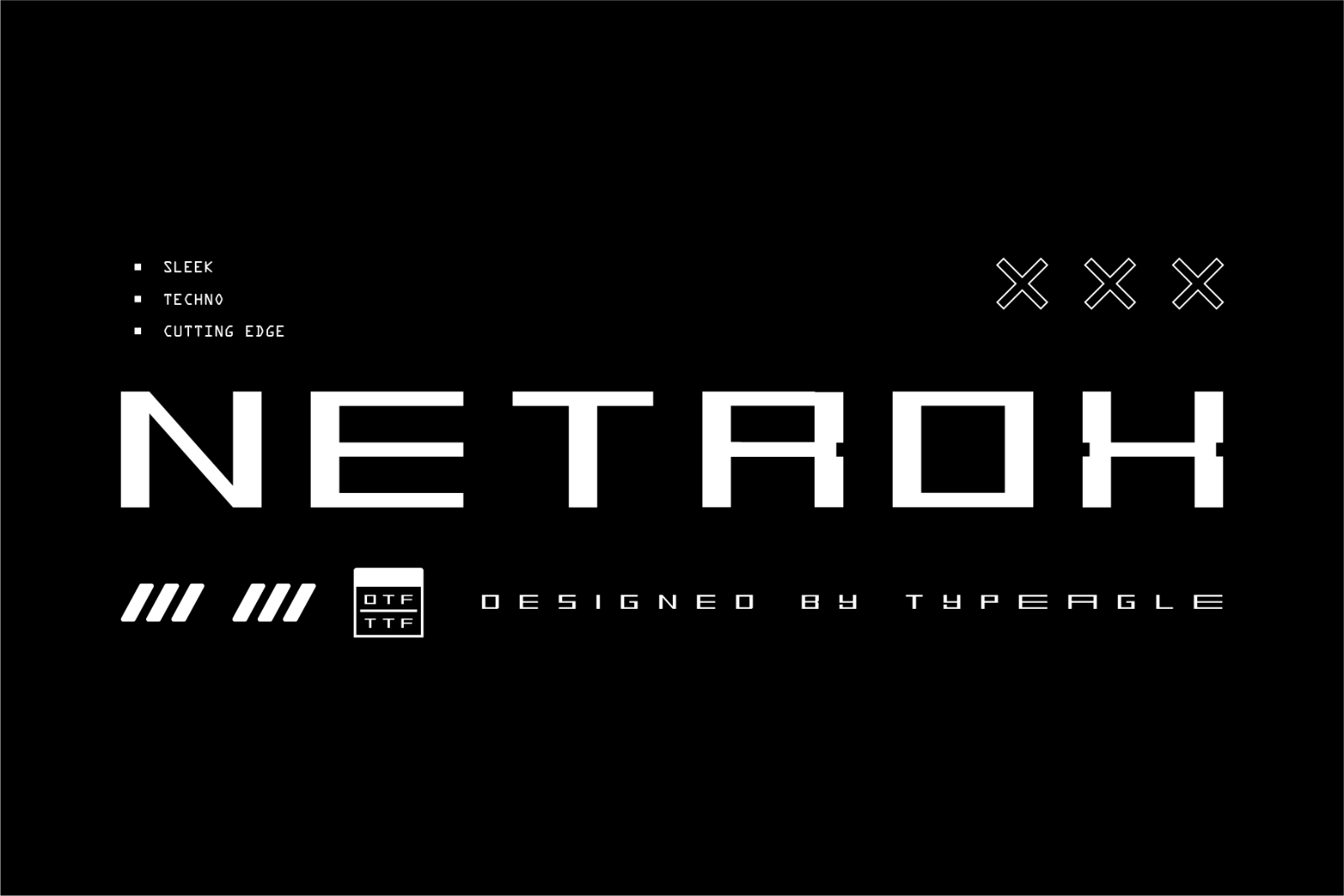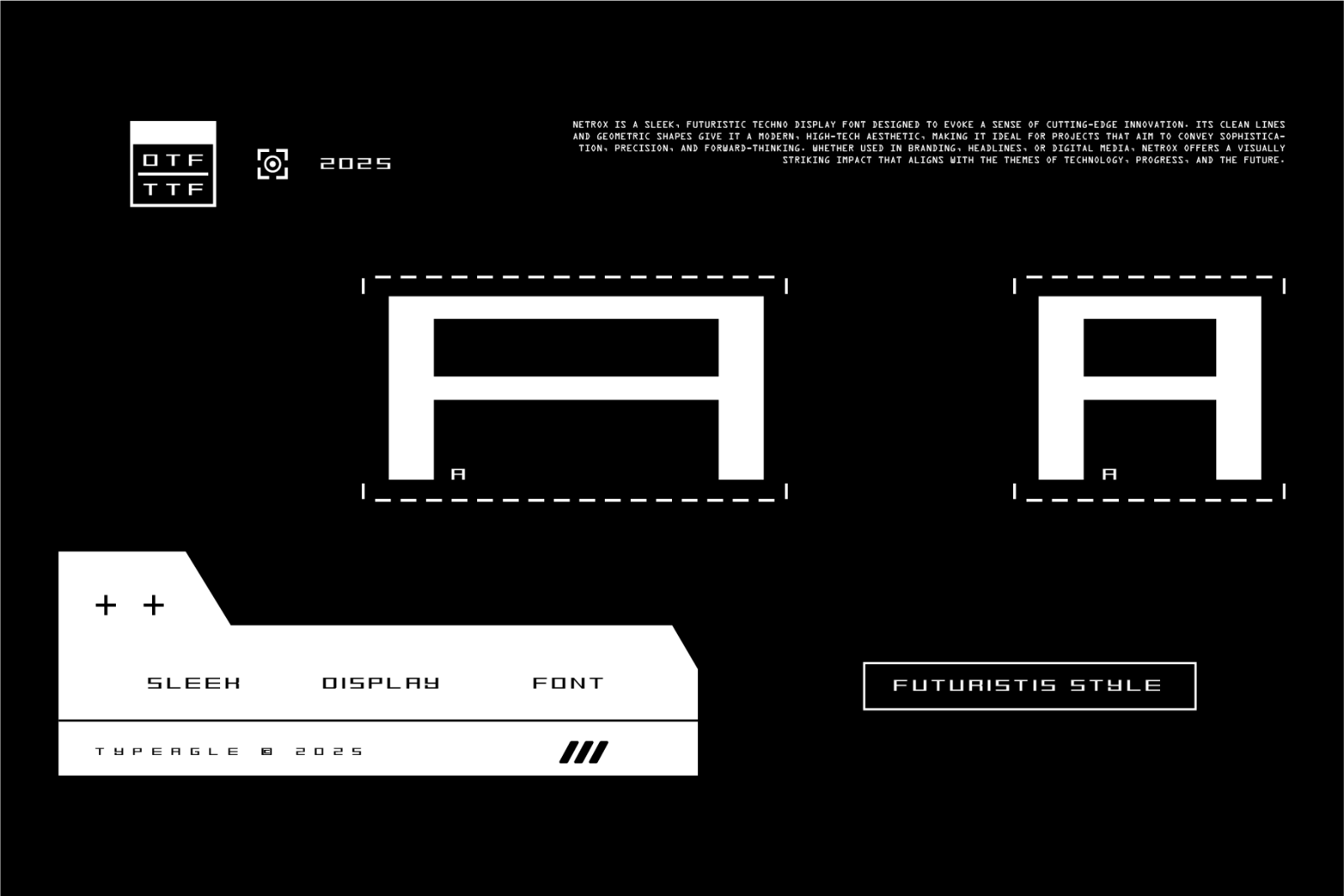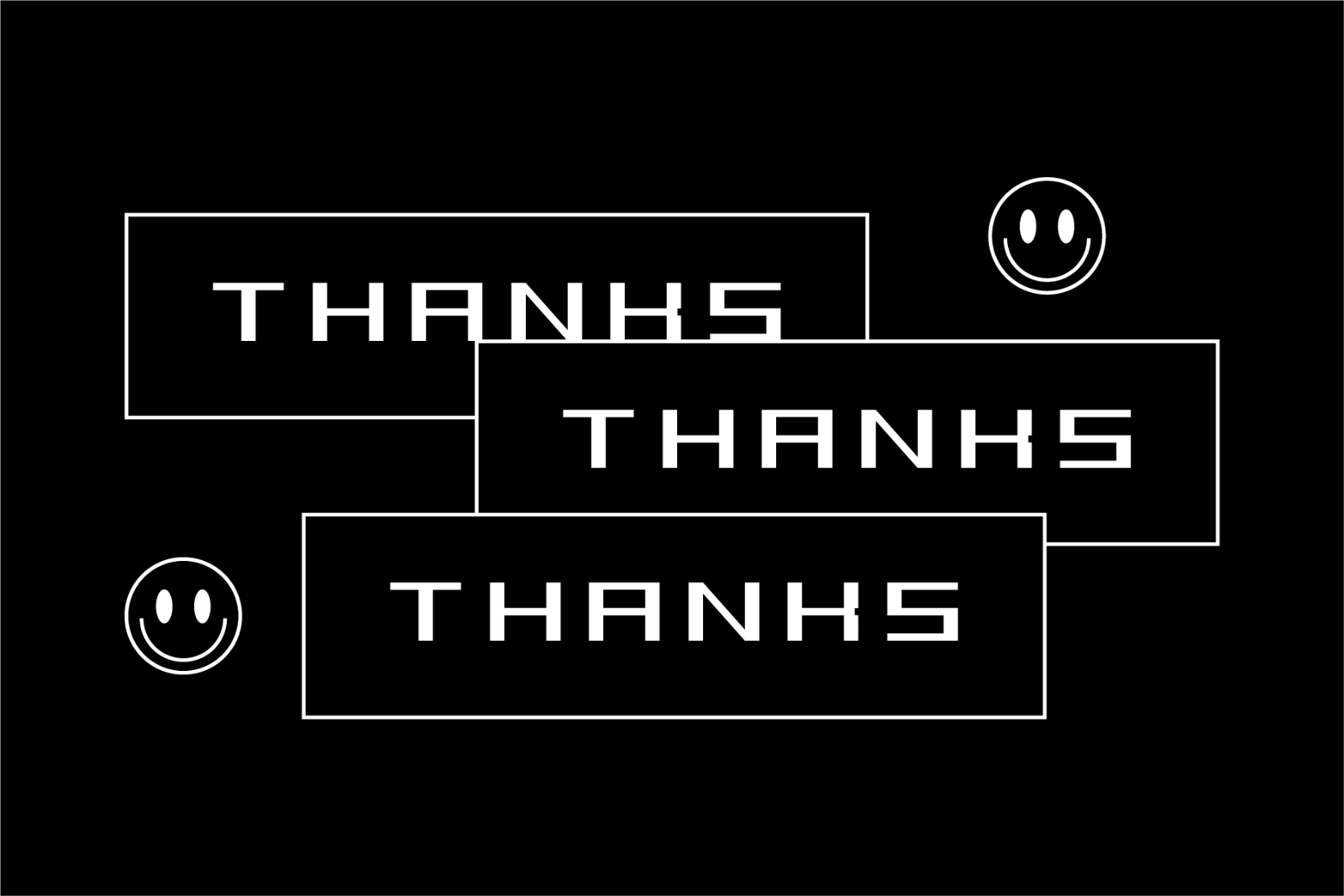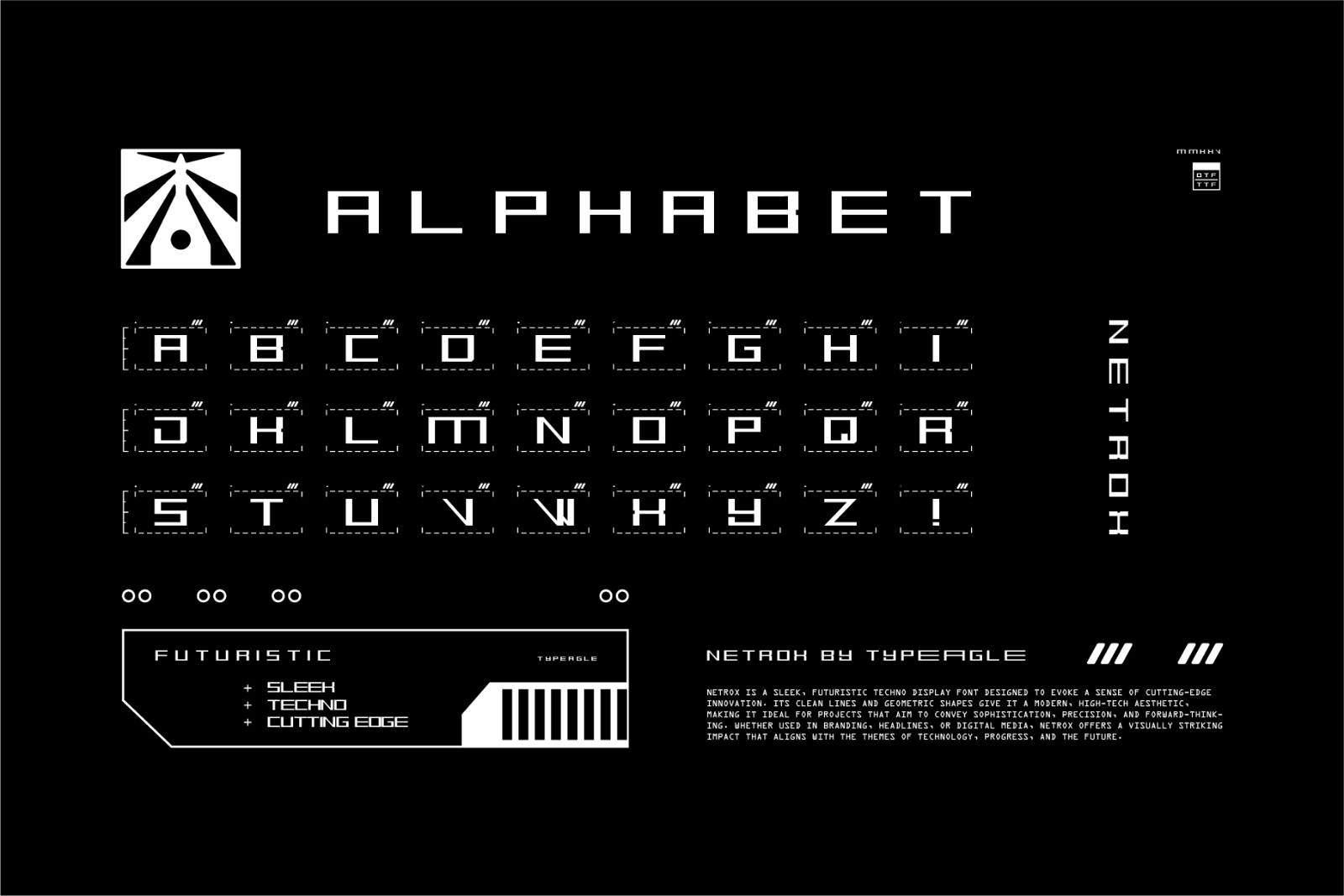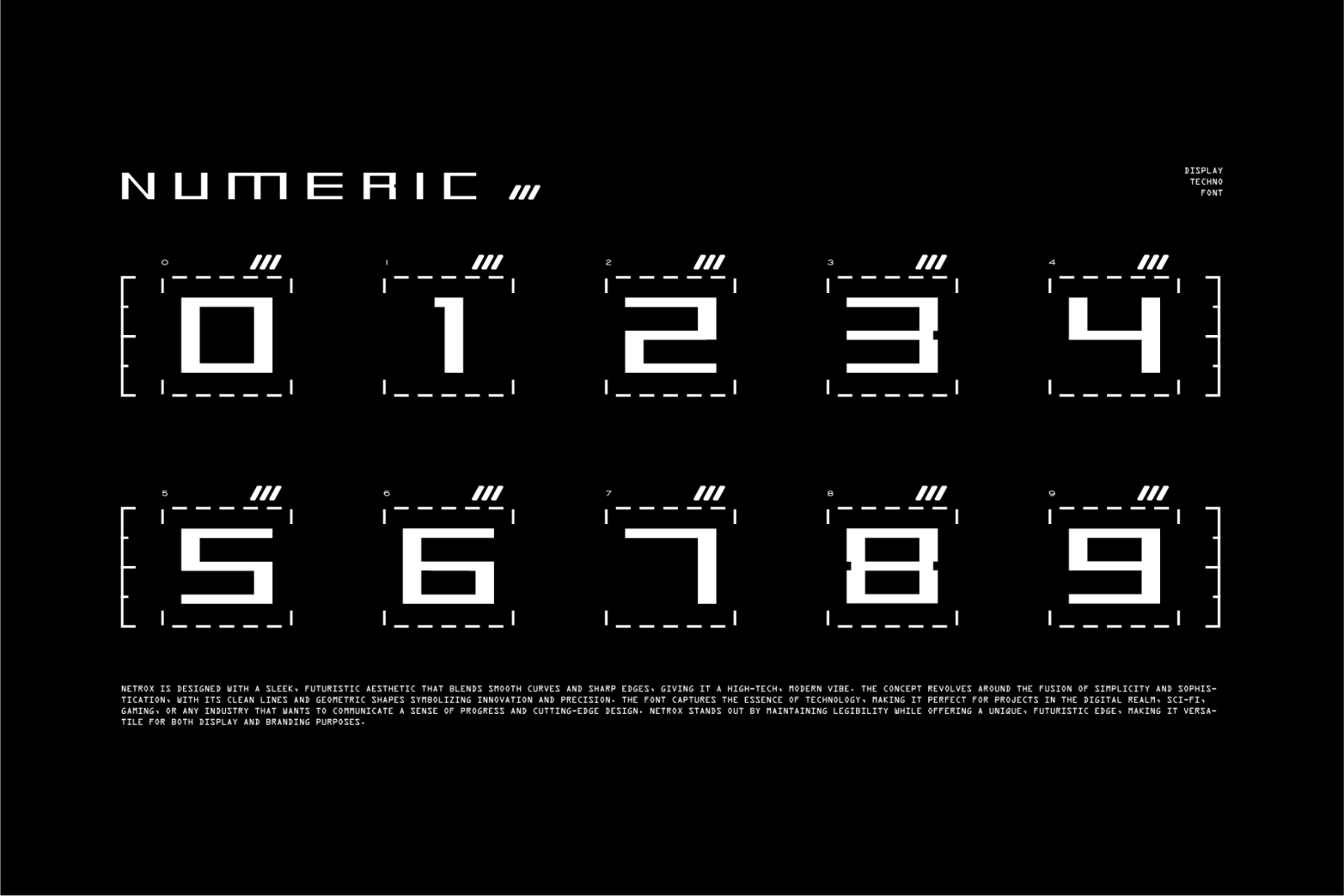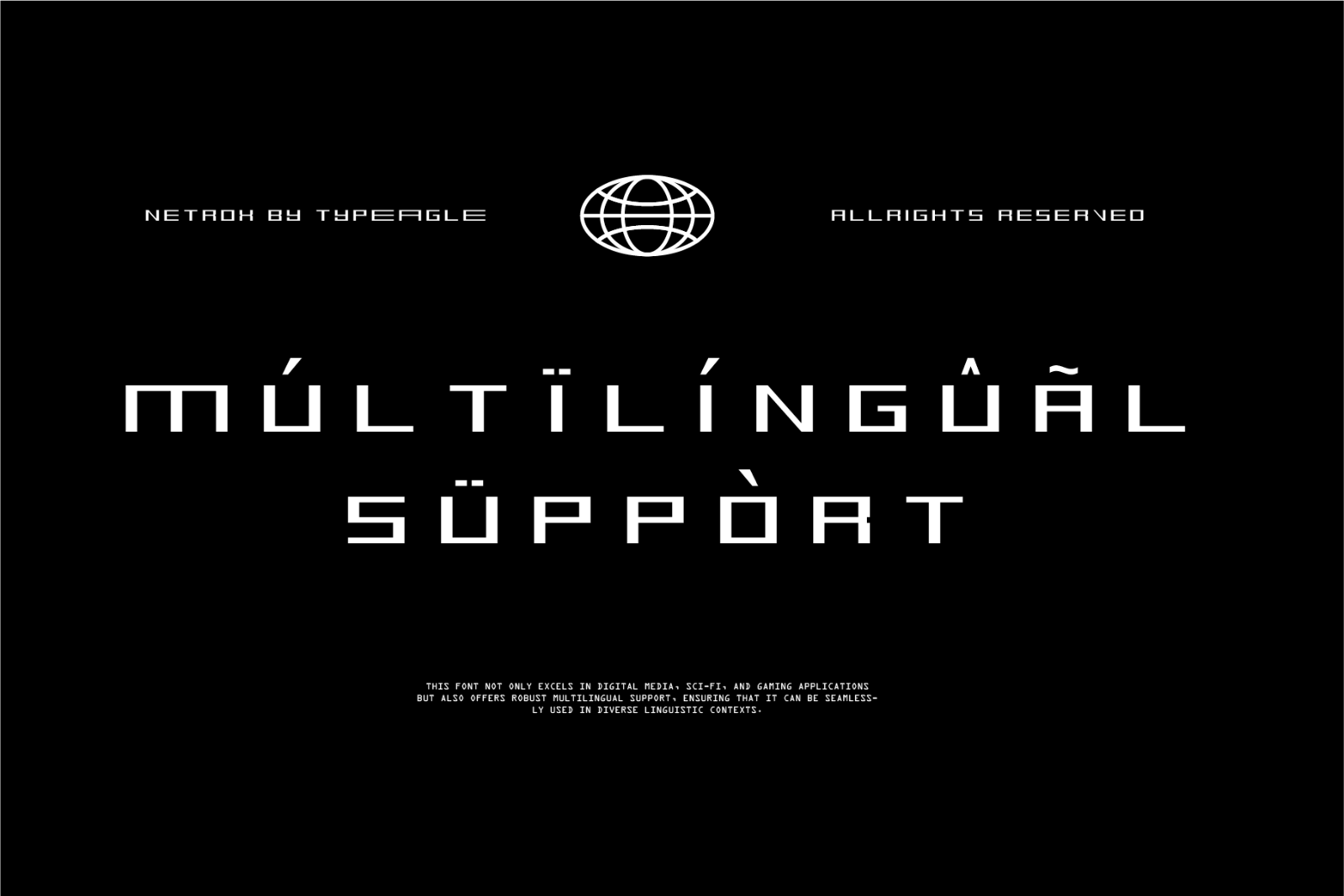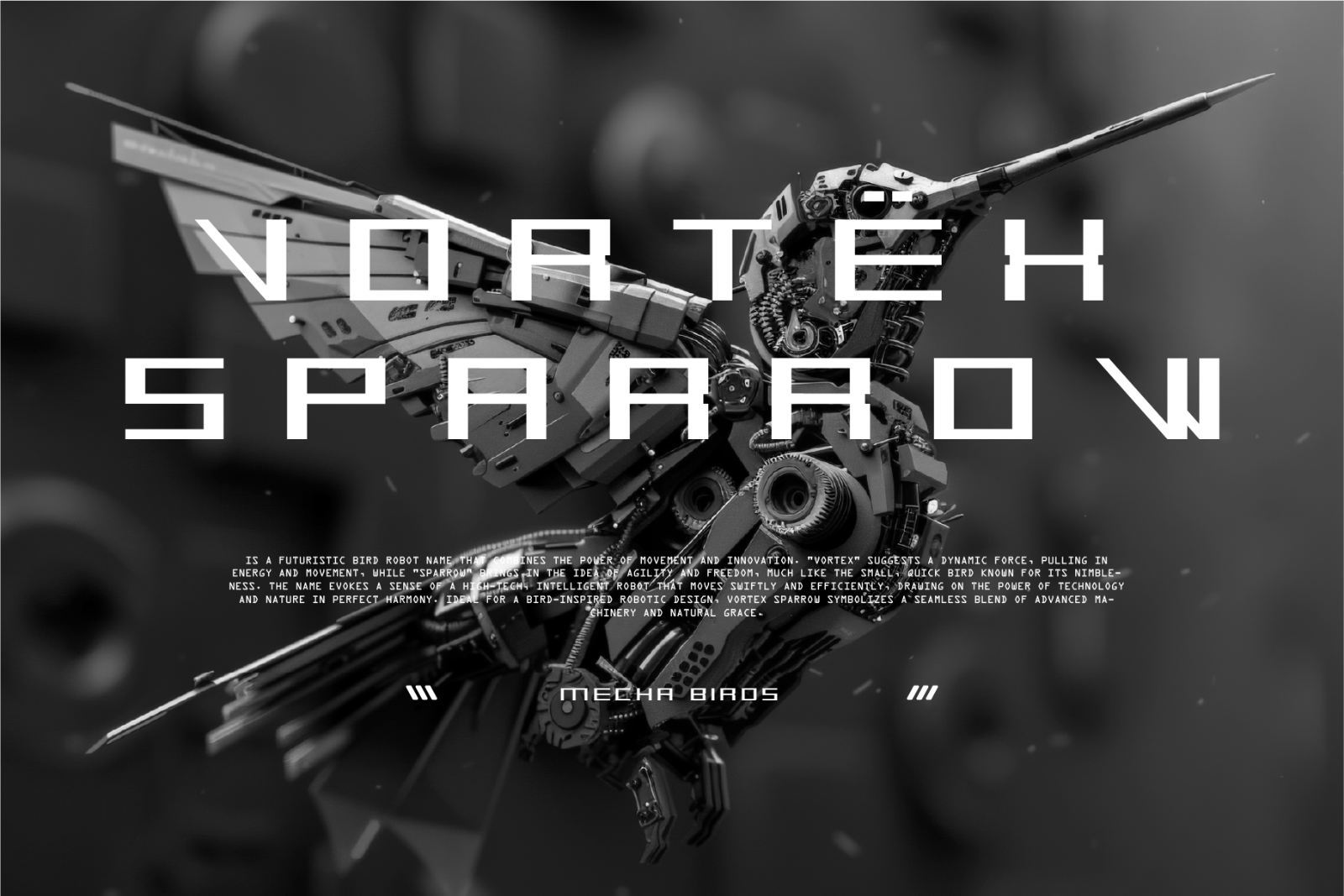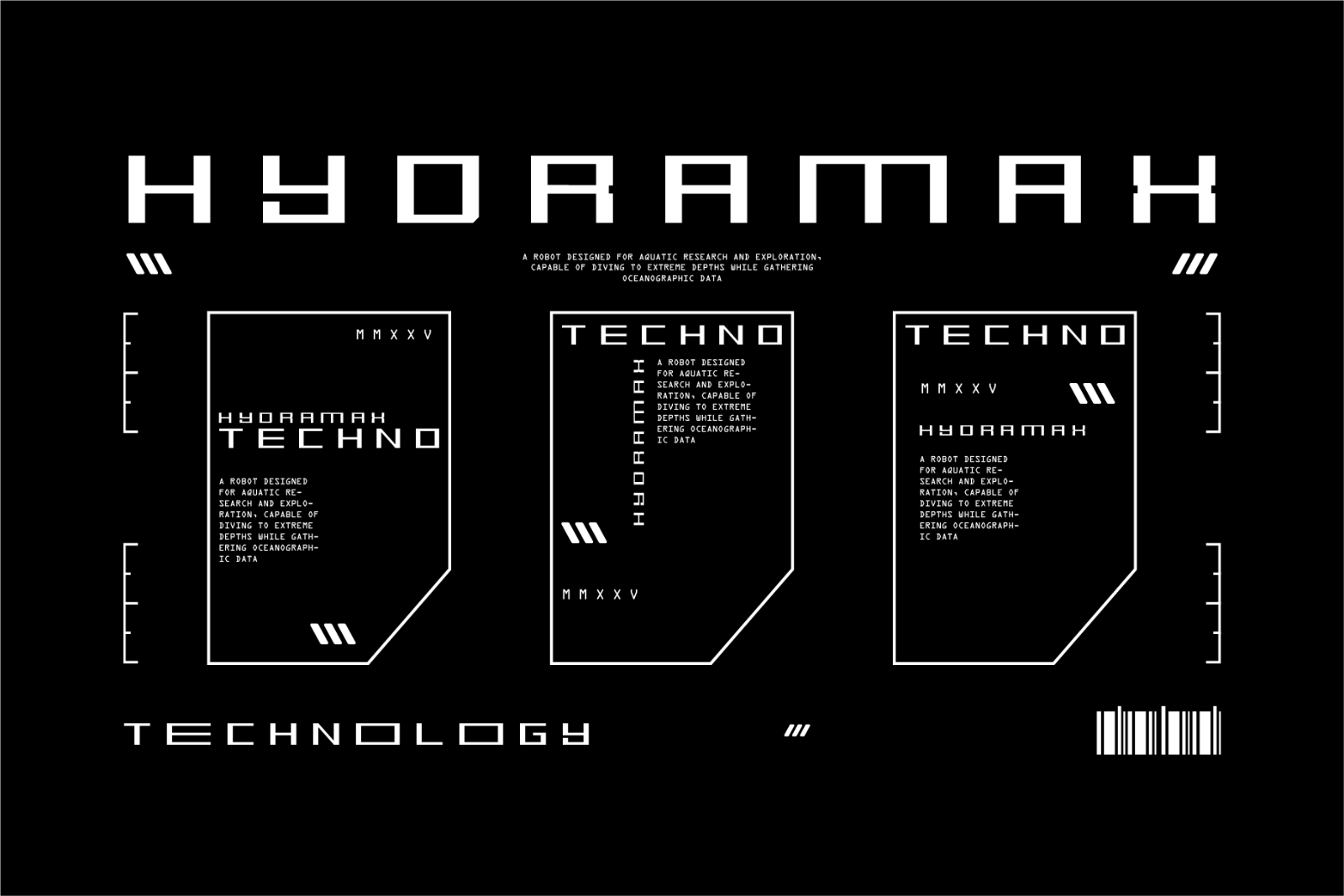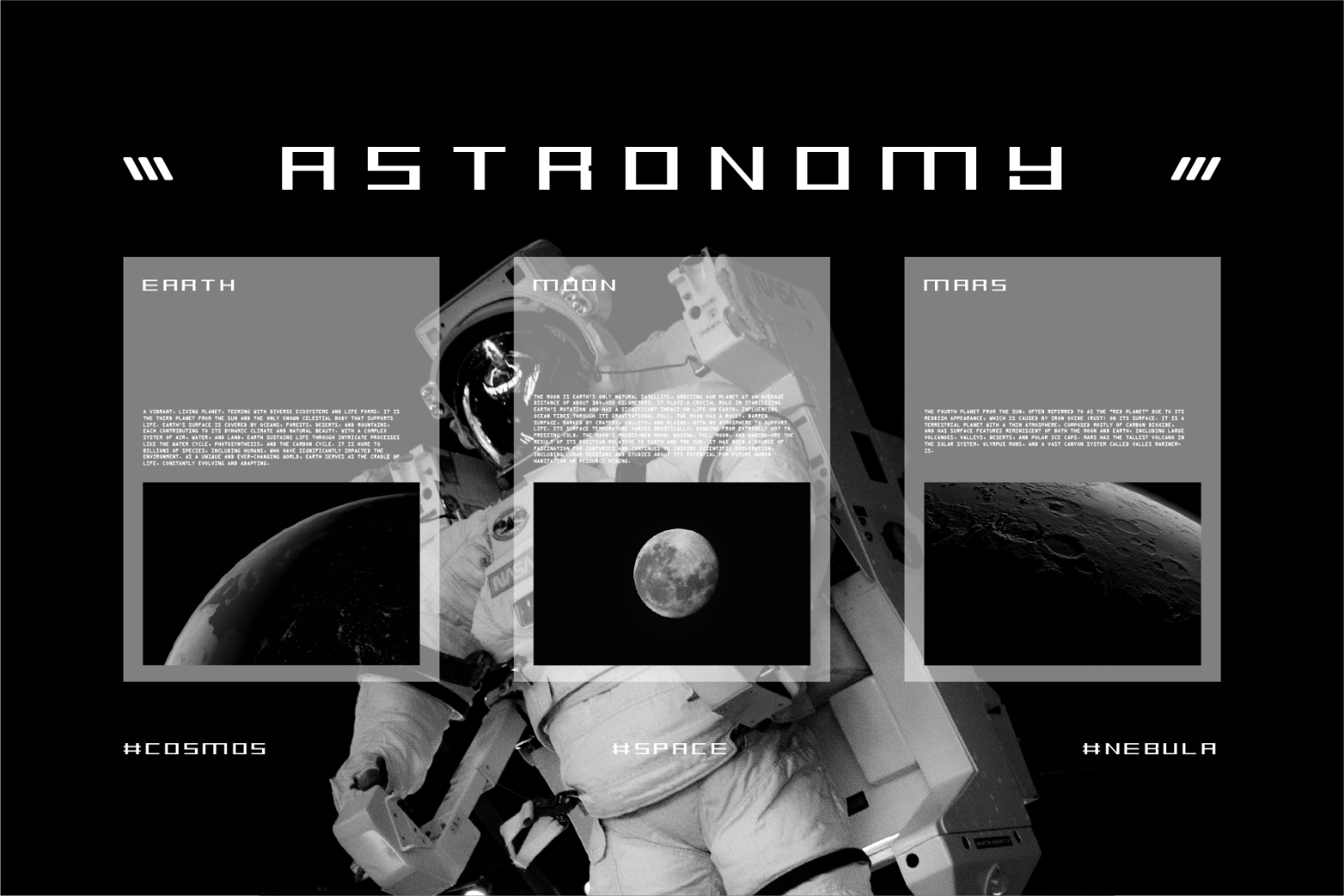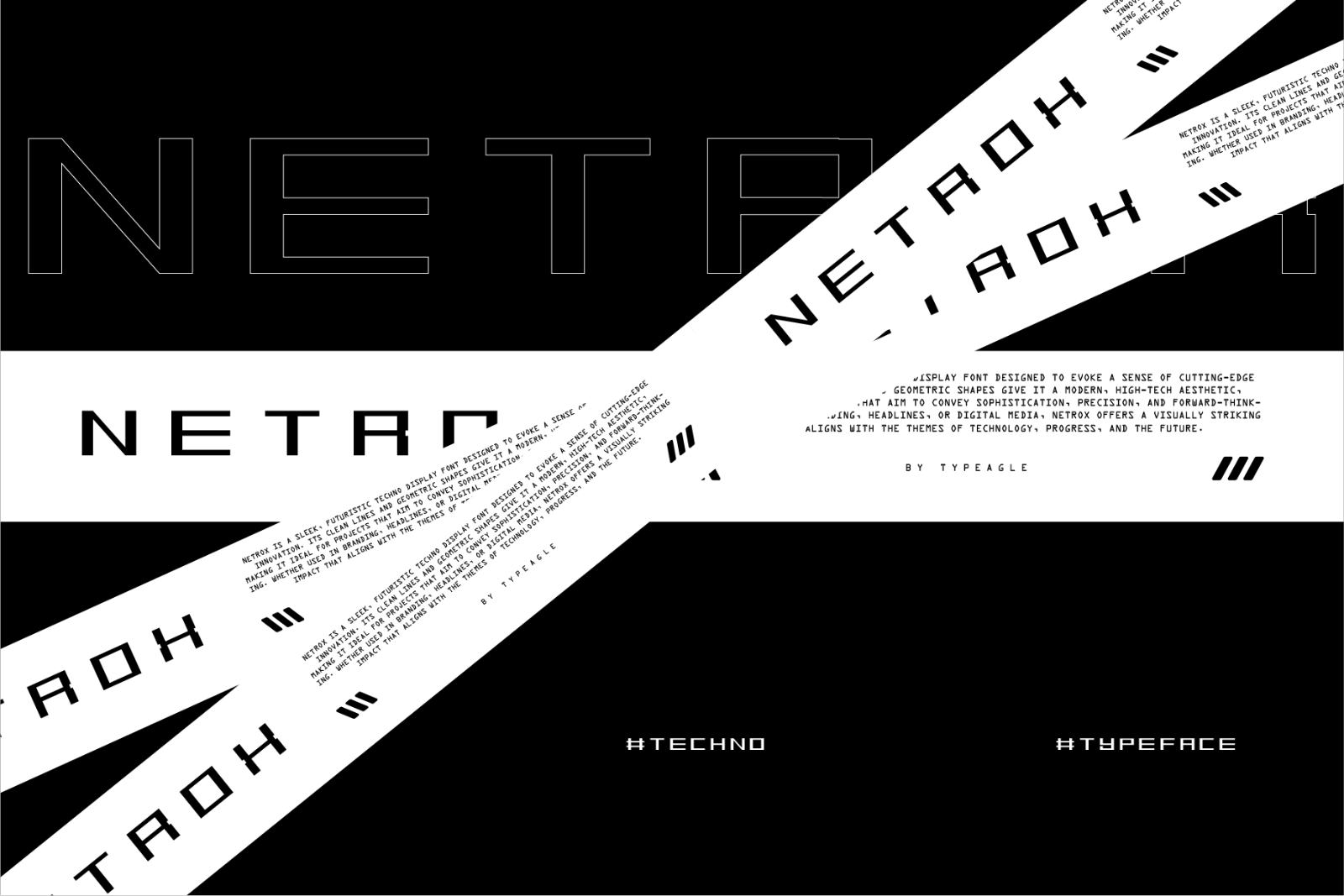
Netrox is a sleek, futuristic techno display font designed to evoke a sense of cutting-edge innovation. Its clean lines and geometric shapes give it a modern, high-tech aesthetic, making it ideal for projects that aim to convey sophistication, precision, and forward-thinking. Whether used in branding, headlines, or digital media, Netrox offers a visually striking impact that aligns with the themes of technology, progress, and the future.